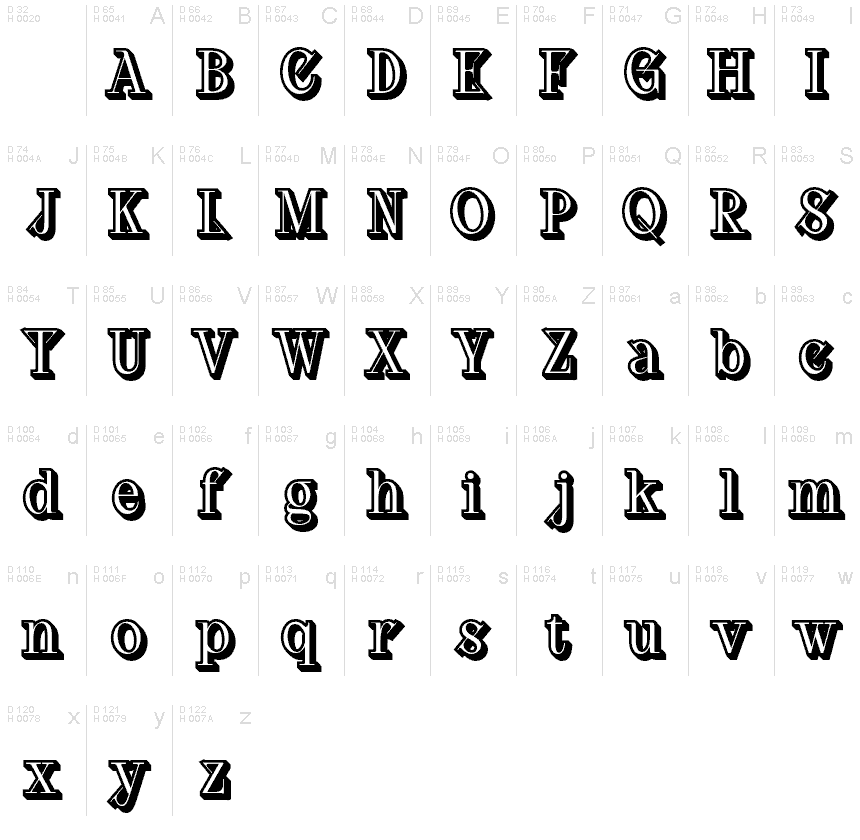
Chiston-ExtrudeRight Demo
Chiston ExtrudeRight font is a three-dimensional decorative serif by Craft Supply Co. Its exquisite detailing reflects an unmistakable gothic influence, meshing seamlessly with the retro-inspired roots that guide the design of this bold typeface. Charming lettering flows with good rhythm to form a stunning font that owes much of its ornate beauty to the overall robust structure.
The flexibility of this free 3D serif font opens the doors for an impressive number of possible use cases. Masterpiece posters, professional brochures, headline-type magazine covers, and prominent business cards are some areas where it works best. Unique infographics, social media cover page designs, websites’ visuals and contents are other perfect examples of use cases.